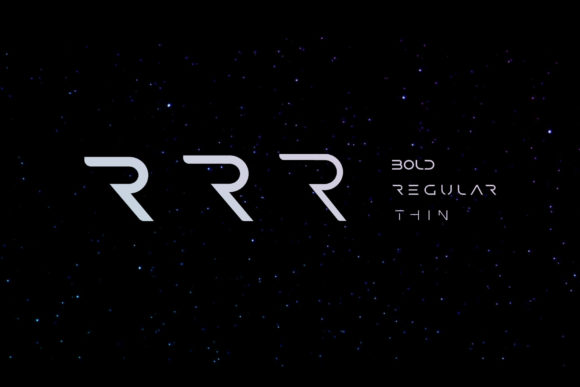
Researcher Font
Researcher is a clean and modern looking display font. Add this minimalist and techno styled font to your web designs, logos or pretty much anything that requires a smart, cool touch.